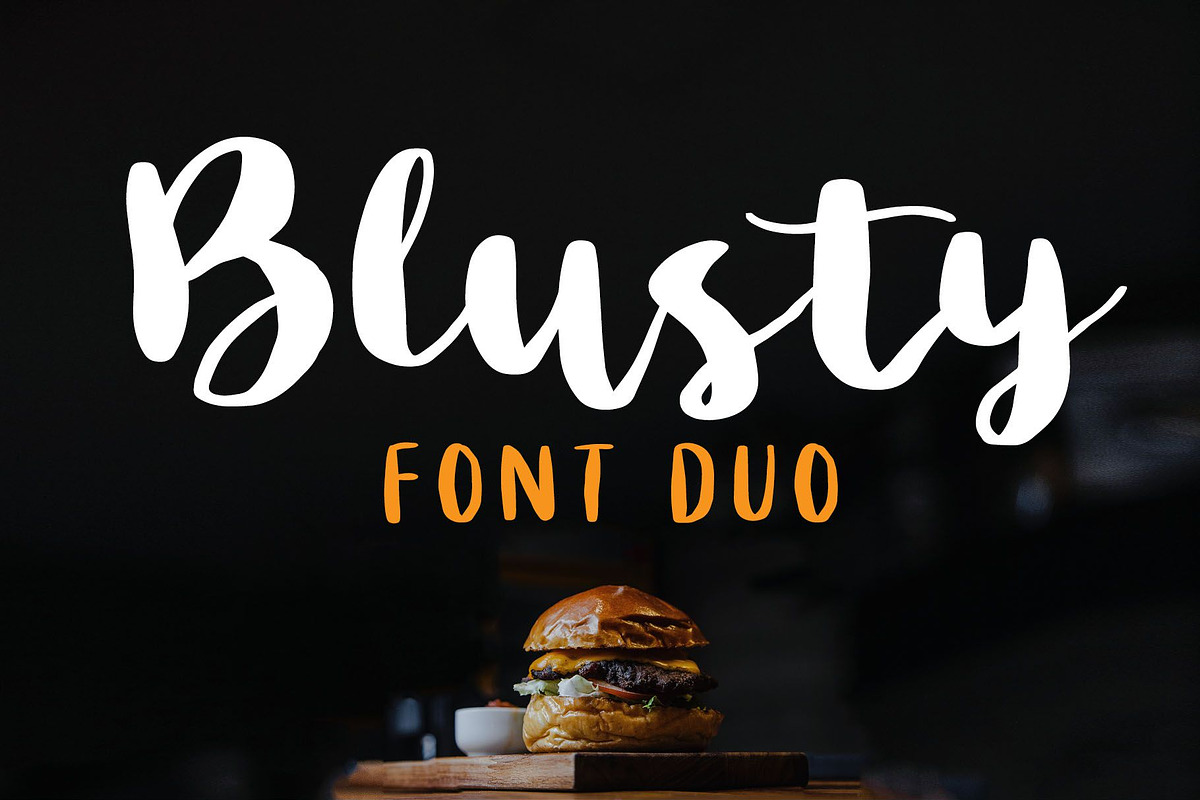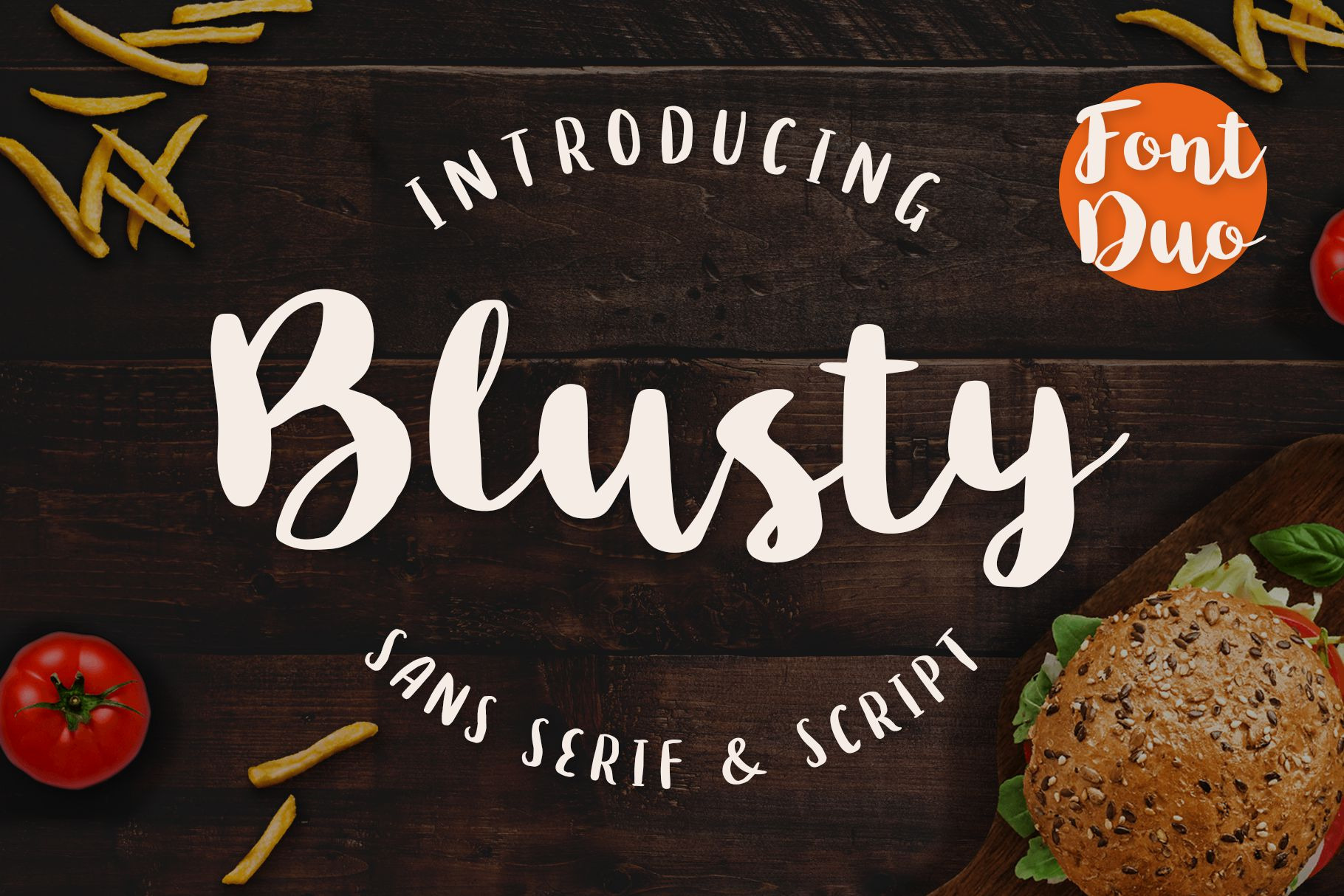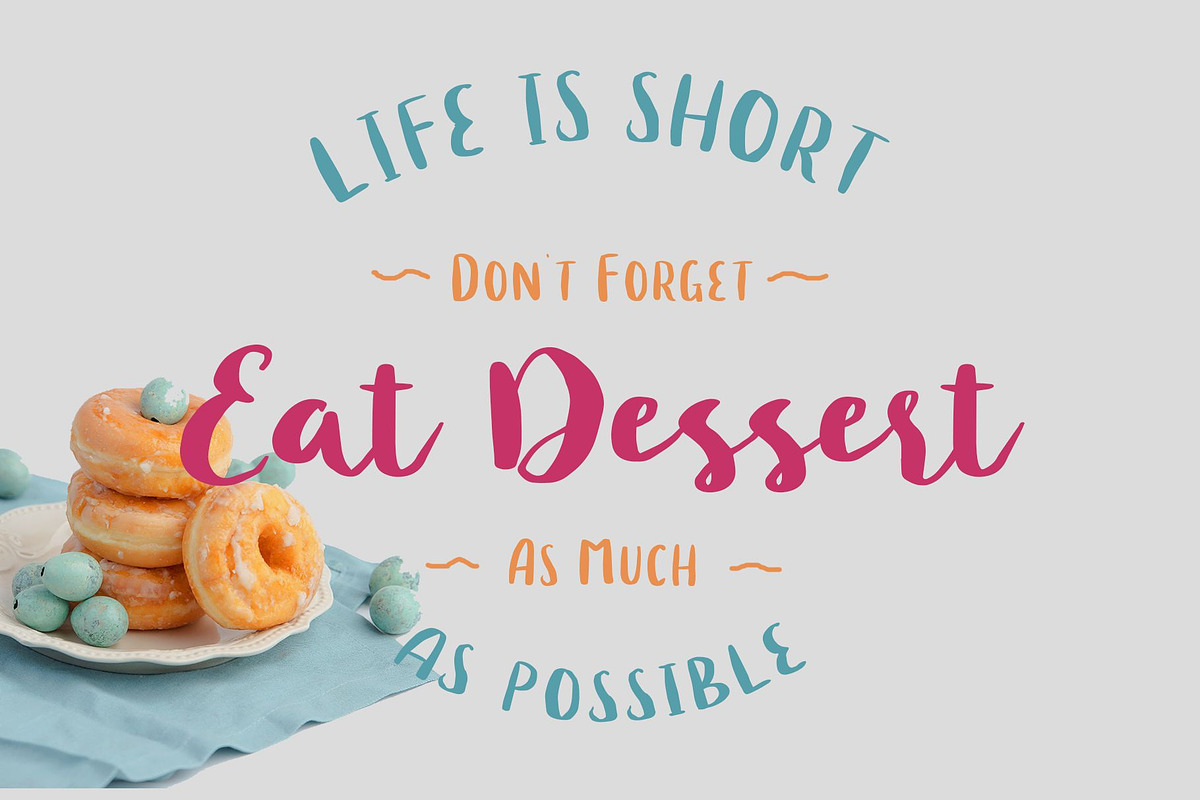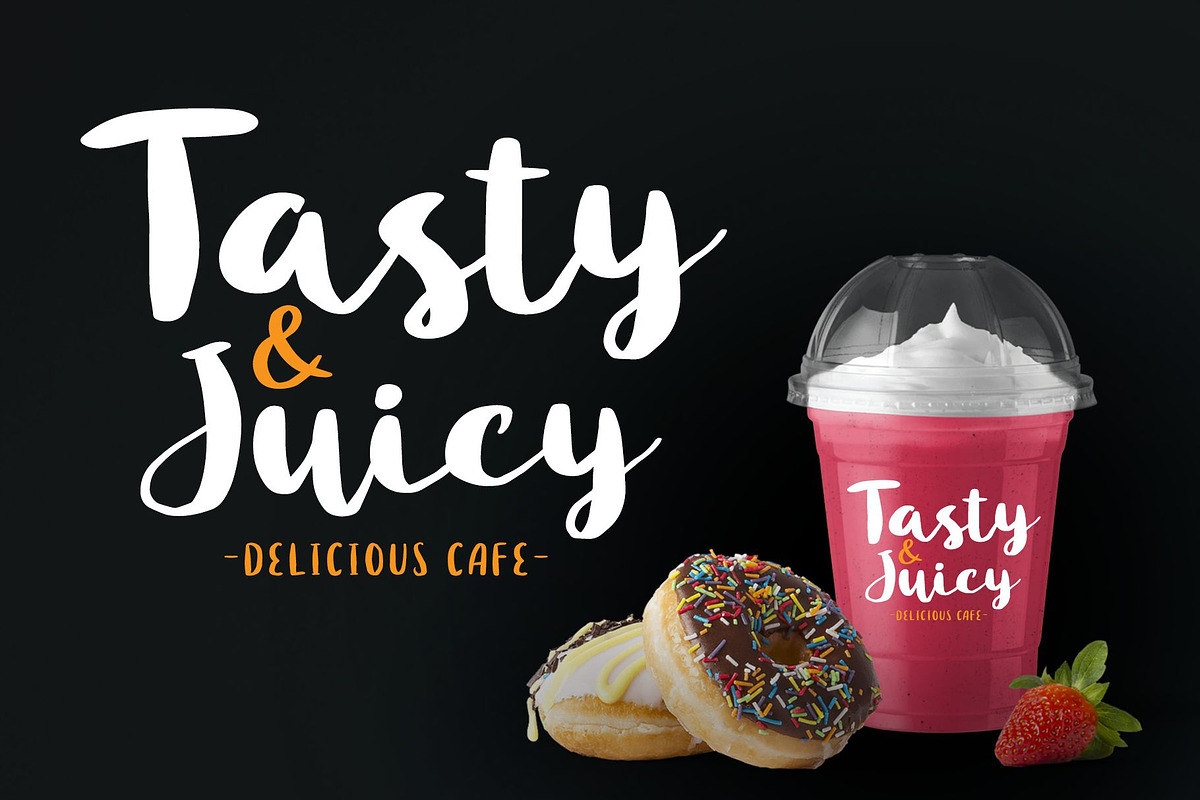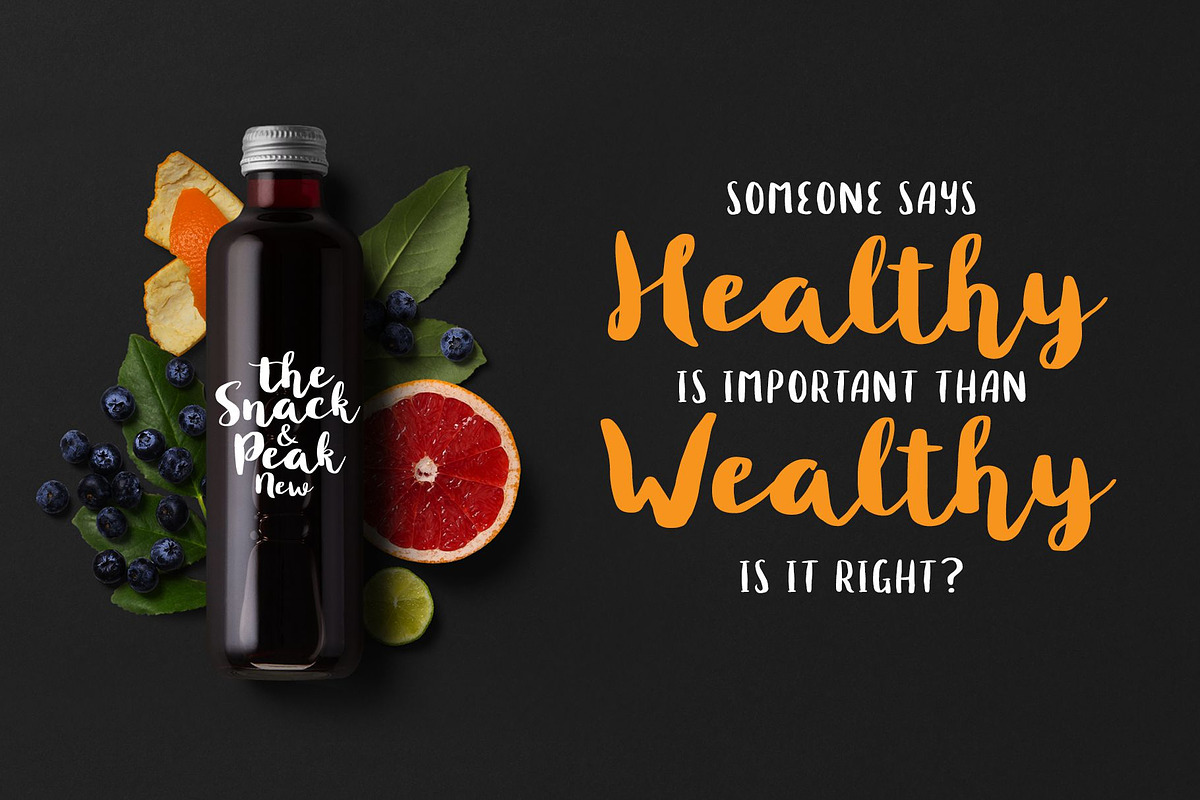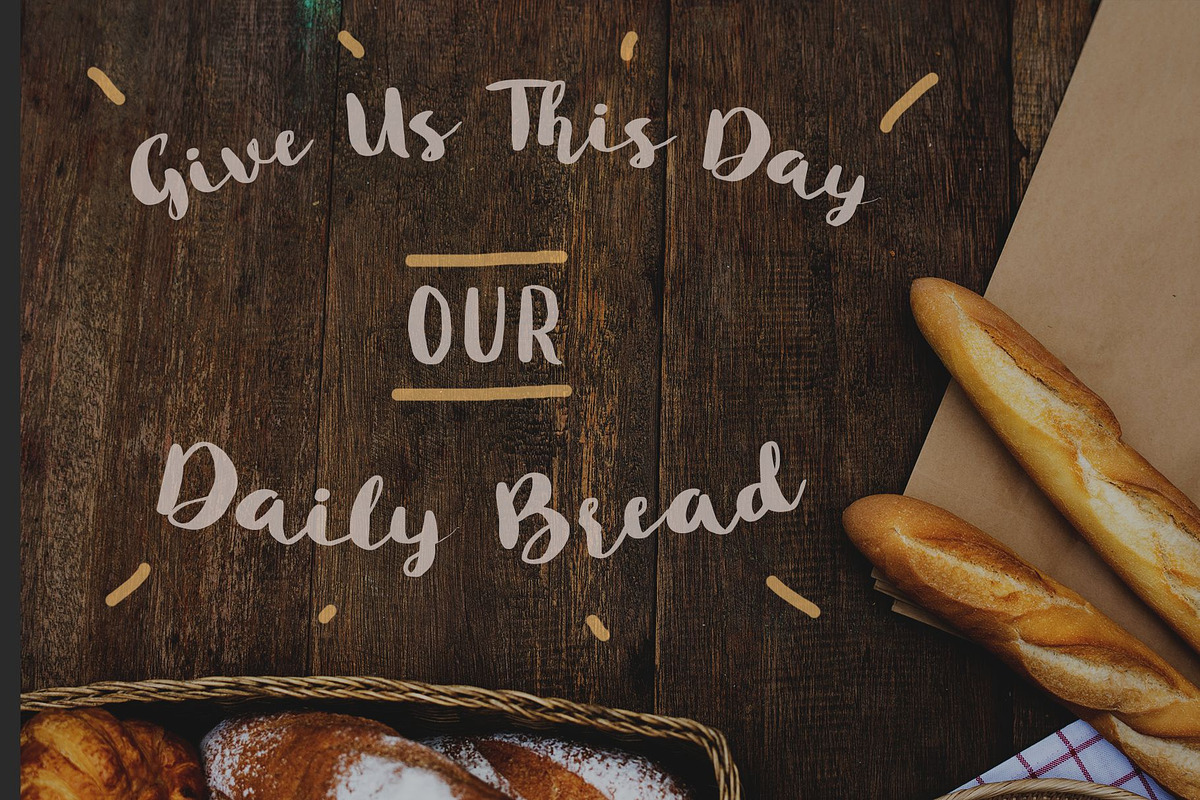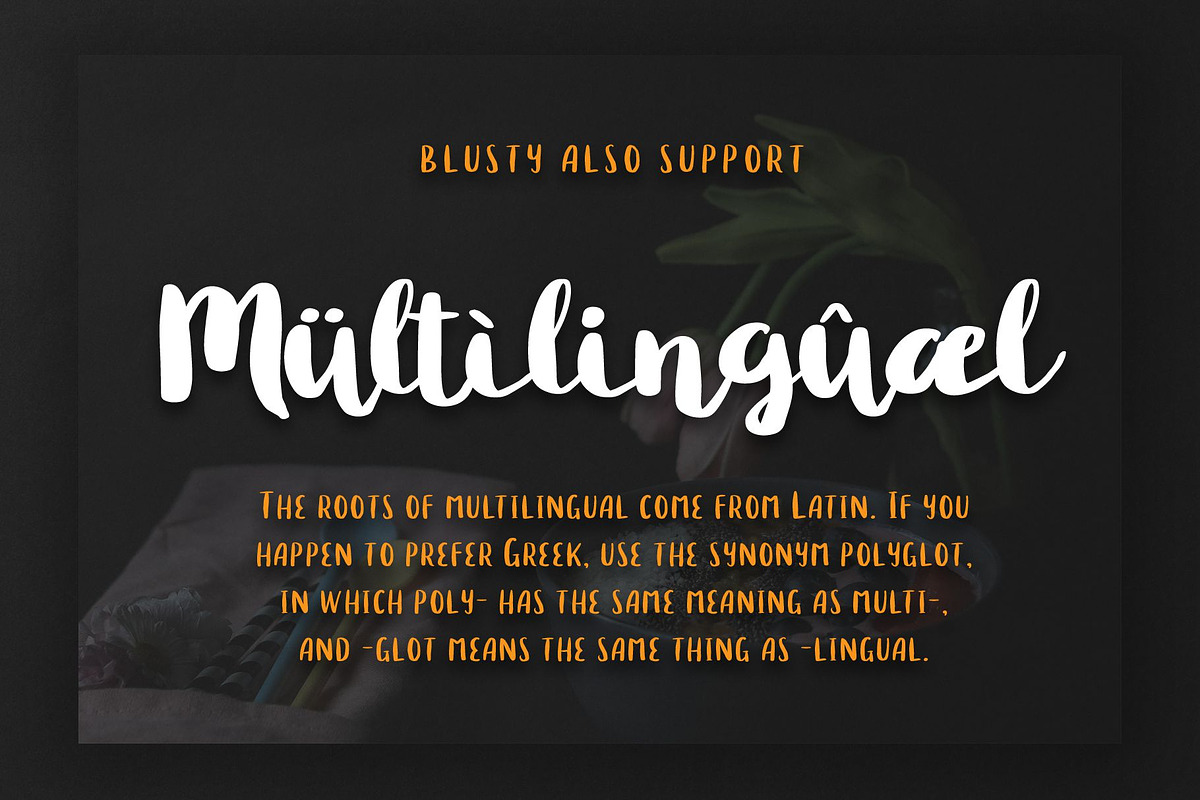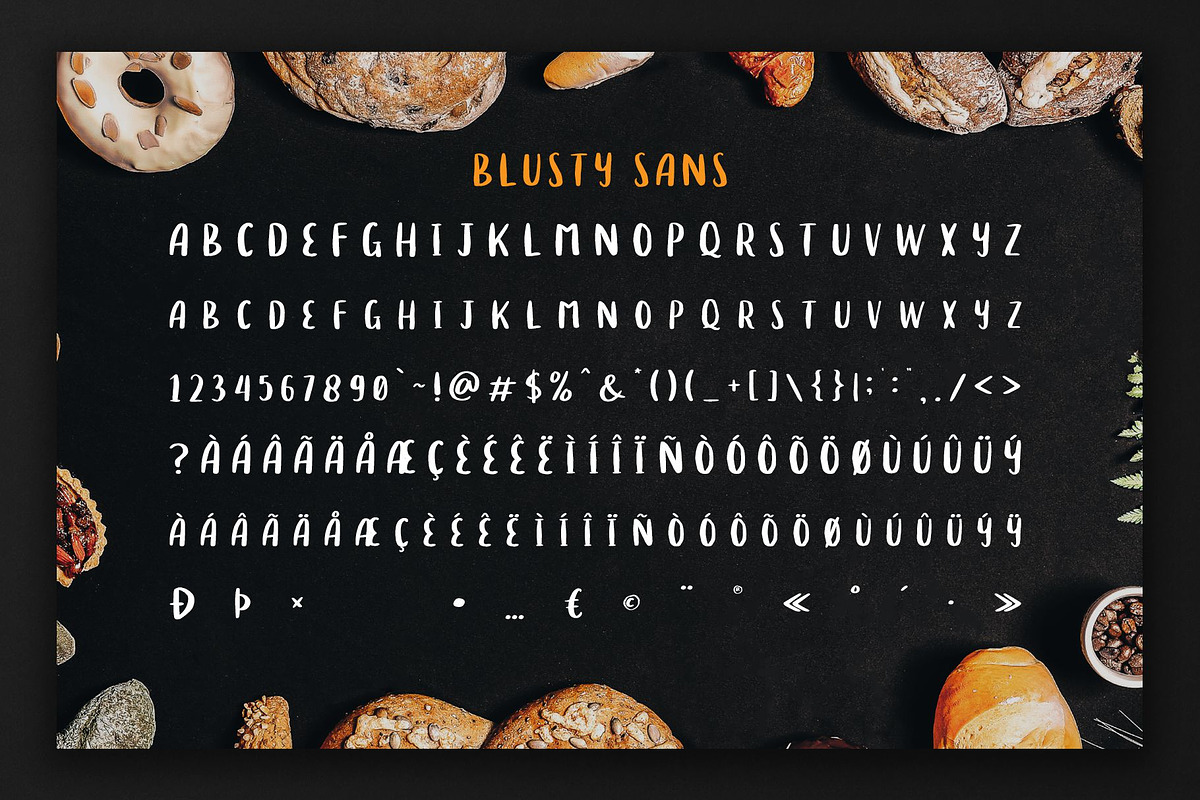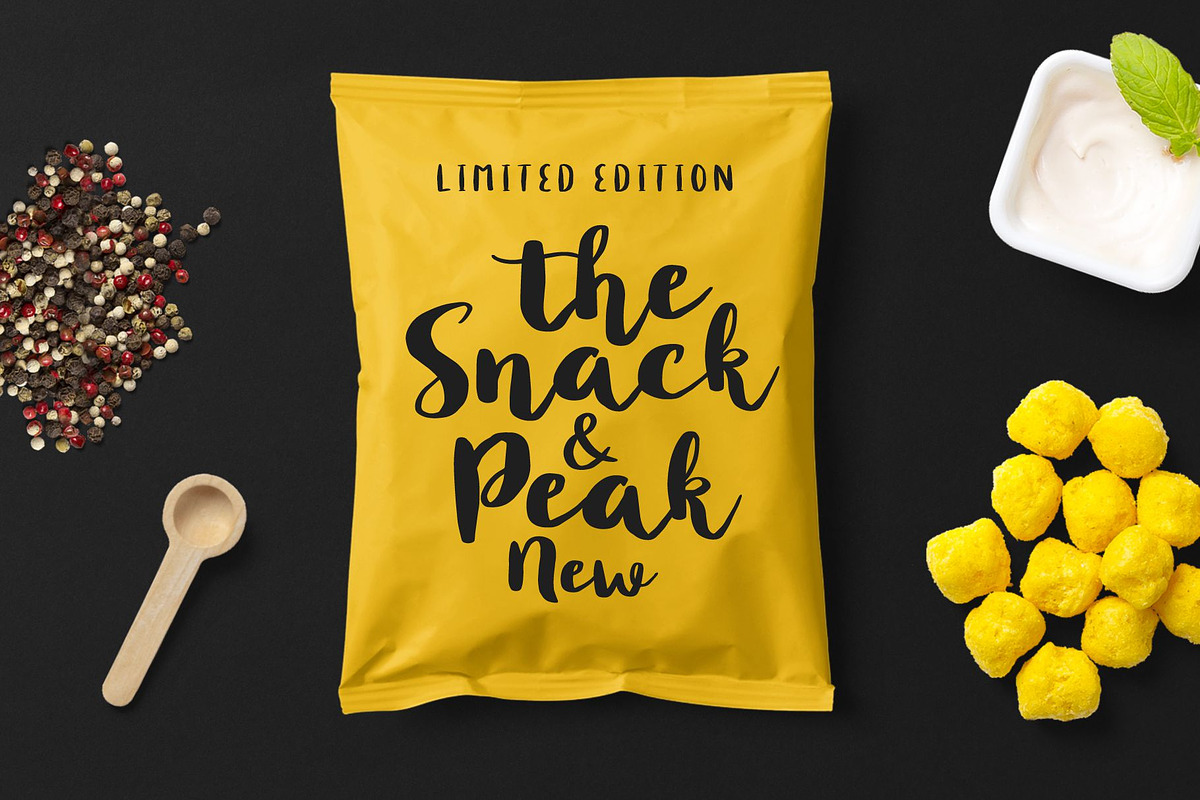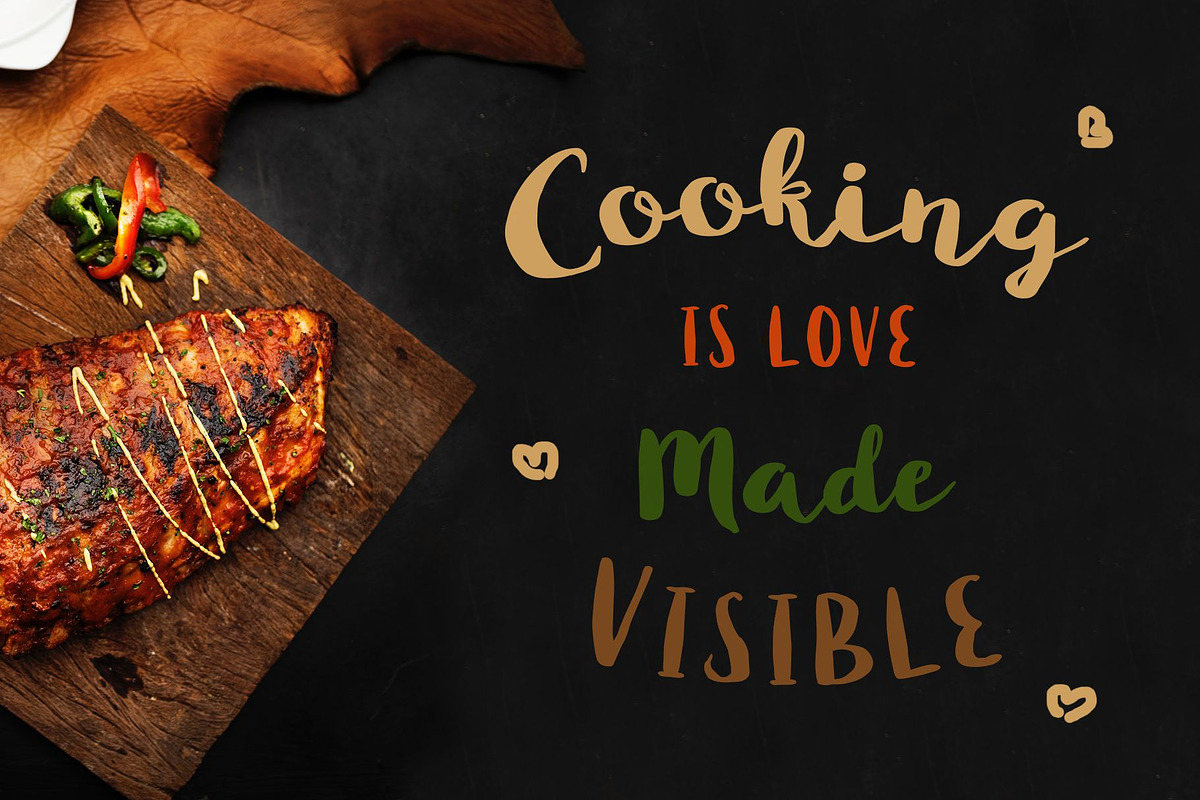
Blusty Font Duo
๐ Introducing New Font : Blusty Font Duo ๐
Blusty Font Duo is an handwritten script font based on the expression of real handwriting, lets you transform type into an exciting and beautiful piece of work. The irregular, hand-lettered look adds a real human touch to things and comes along with a lot of loving details. Combine all font-styles the way you want, add some ornamental swashes or banners and even a single word becomes magnificent.
Blusty Font Duo gives you possibility to build your text almost like handwriting with all the charming imperfections and variations that a real handwriting has. Bravely will work perfectly for fashion, e-commerce brands, trend blogs, wedding boutiques or any business that wants to appear upscale and chic.
- Upper Case & Lowercase
- Standart Ligatures
- Numerals & Punctuations (OpenType Standard) (Aรรรรรร CรDรEรรรรIรรรรNรOรรรรรรUรรรรWYรลธแปฒลธรลรร)